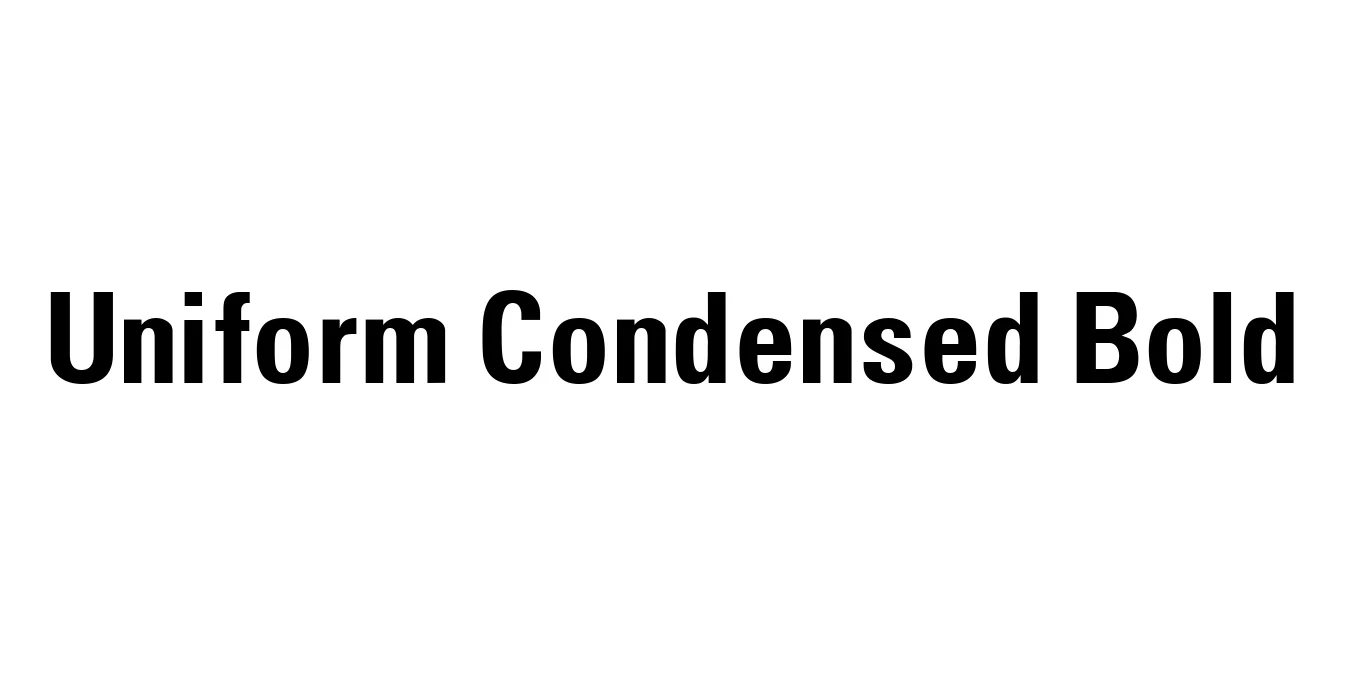
Uniform Condensed Bold
Designed by Richard Miller
Uniform Condensed Bold is a multi-width geometric sans-serif typeface designed by Richard Miller of Miller Type Foundry. The font was specifically engineered to maintain the clean, circular essence of geometric shapes while being compressed into a more space-efficient width. This creates a unique balance where the typeface remains highly legible and visually striking even when horizontal space is limited.
The design of Uniform Condensed Bold is part of a larger system that allows designers to maintain typographic consistency across various layouts. It is particularly valued in professional environments for its authoritative yet approachable appearance. Its bold weight ensures that it stands out in high-pressure design scenarios like digital advertising, environmental signage, and contemporary editorial layouts.
Uniform Condensed Bold Best Uses
Perfect for high-impact titles where horizontal space is restricted.
Strong, geometric shapes provide a modern and trustworthy brand identity.
Excellent for catching attention in digital banners and print posters.
The condensed width is ideal for headers on small screen interfaces.